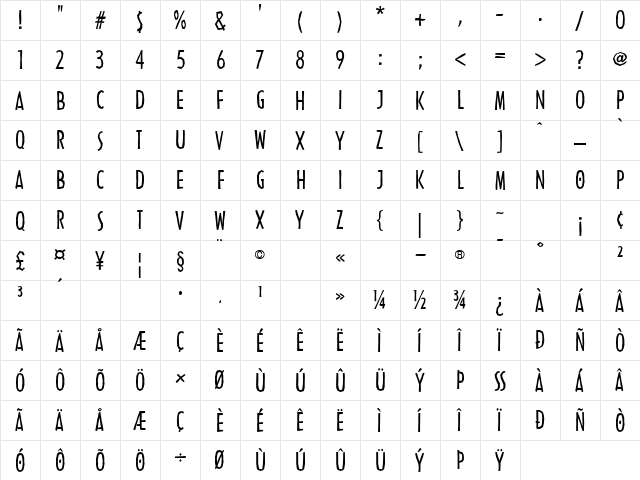
LTNordica Regular
Design Context for LTNordica Typeface
LTNordica offers clean, dependable letterforms without strong stylistic allegiance, making it a practical choice for designers who need flexibility.
Pro Tip: Pair LTNordica with a font of contrasting weight or personality to build a more expressive typographic hierarchy.